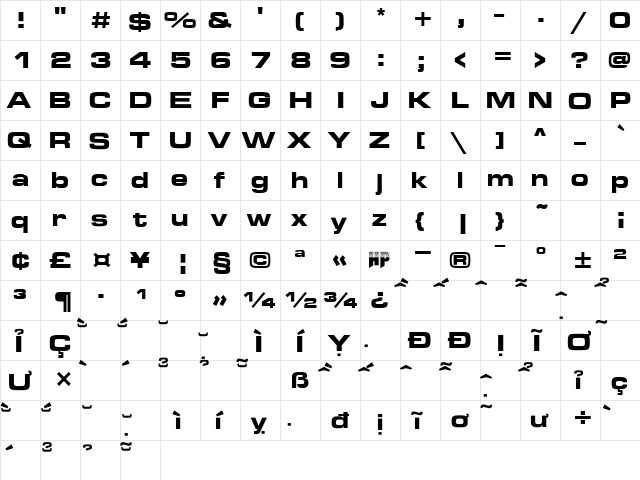
HP-Dan Truong Heavy Bold
Design Context for HP-Dan Truong Heavy Typeface
HP-Dan Truong Heavy is a composed and adaptable typeface that performs quietly and consistently across a wide range of design contexts. Its bold stroke weight gives it real presence on the page.